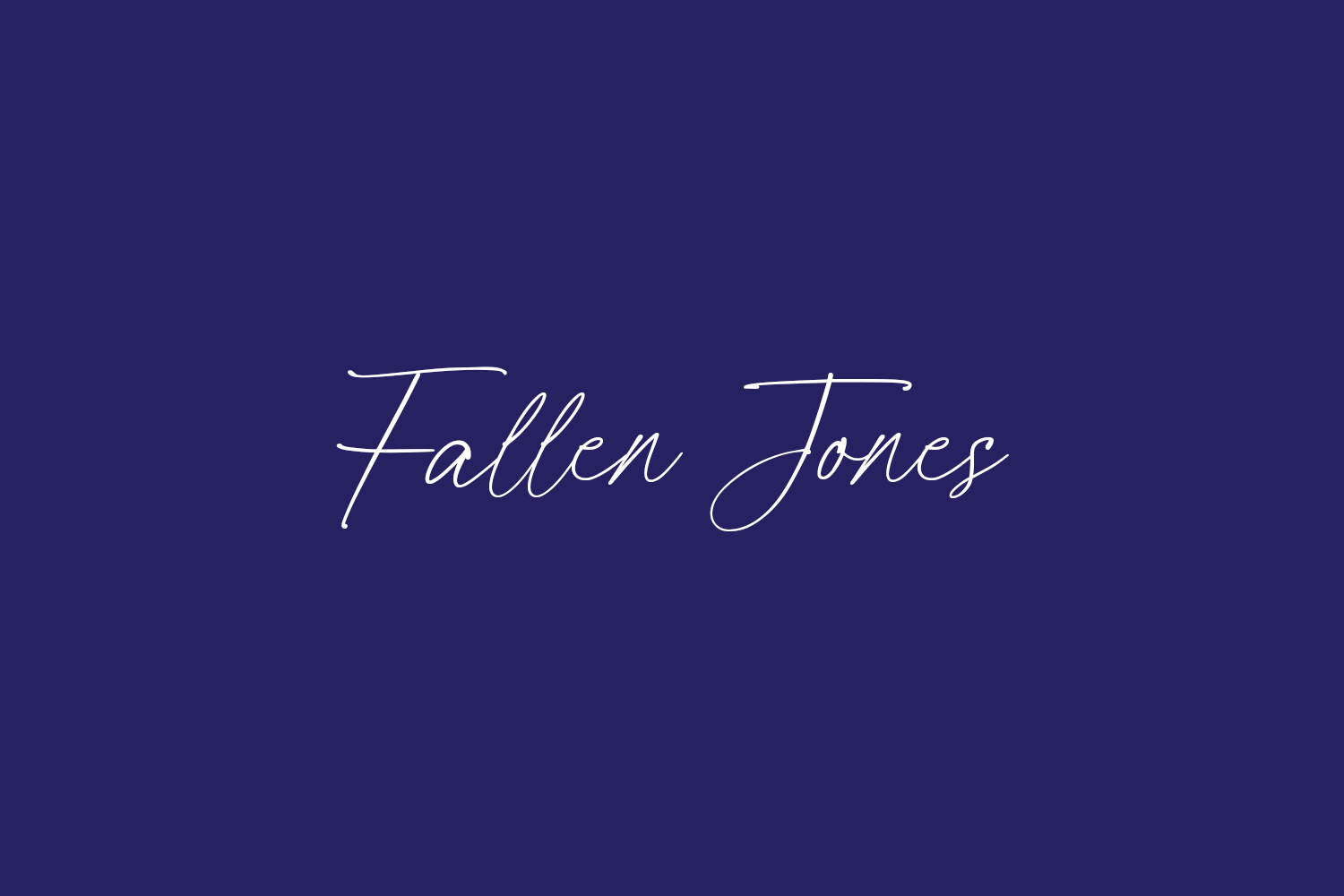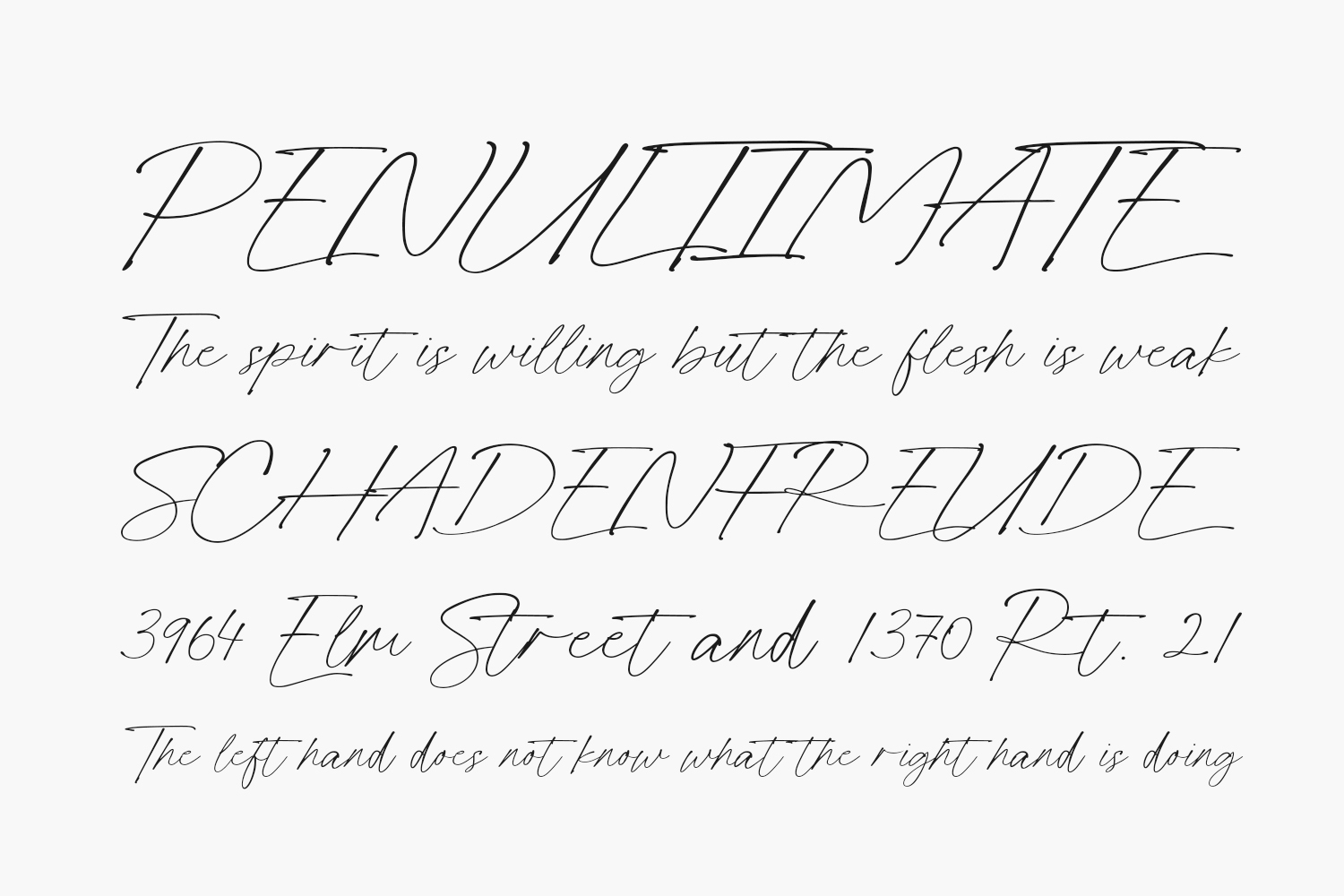
Fallen Jones Free Font is a unique and elegant handwritten font. It looks beautiful on a variety of designs requiring a personalized style, such as wedding invitations, thank you cards, weddings, greeting cards, logos and so on. This font is PUA encoded which means you can access all of the glyphs and swashes with ease. Fallen Jones Free Font was designed by Jimtype Studio and is free for personal use only. Please purchase the full version for commercial use.